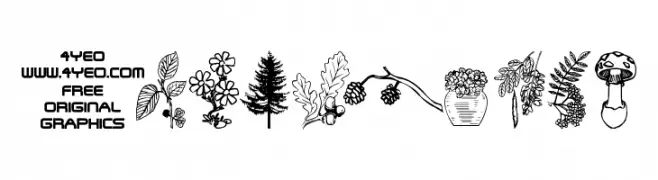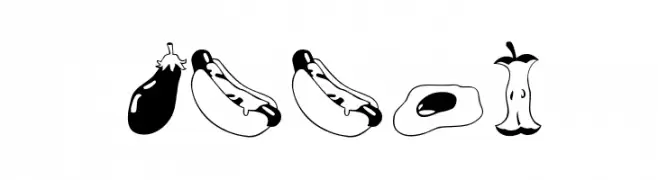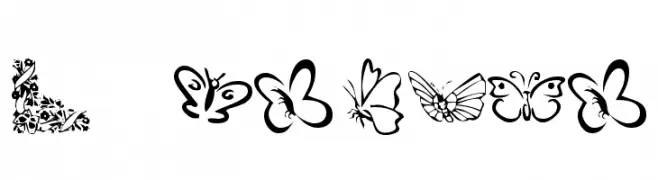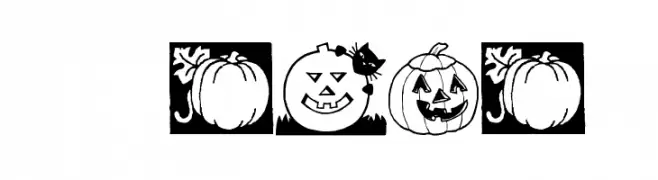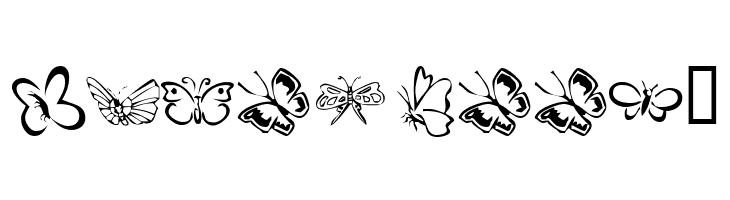
( Fonts by Klaus Johansen - www.listemageren.dK )
A decorative set of panda-themed illustrations in place of traditional characters.
( Fonts by Alan Carr )
A decorative icon font with food and drink illustrations.
( Fonts by Astigmatic One Eye Typographic Institute - Brian J. Bonislawsky - astigmatic.com )
Expressive illustrated faces form each character in a bold, decorative style.
A decorative set of butterfly illustrations in place of traditional characters.
( Fonts by www.4yeo.com )
Hand-drawn holiday-themed decorative illustrations.
( Fonts by www.4yeo.com )
A bold, geometric display font with garden and nature illustrations.
( Fonts by www.4yeo.com )
Decorative dingbat font with summer and vacation illustrations.
( Fonts by www.empire-of-the-claw.com )
A decorative dingbat font featuring iconic character illustrations.